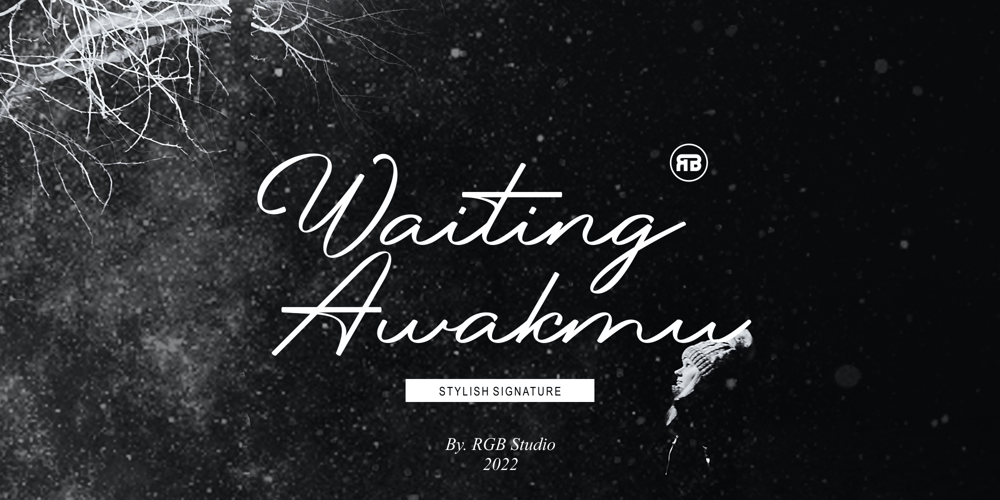
Waiting Awakmu Font Family was designed by MOH. MA’IN and published by RGB Studio. Waiting Awakmu contains 1 styles and family package options. Waiting Awakmu is a classy handwritten font, This is a truly versatile font combining sophisticated, casual and even fun sides depending on the style you use. Files Include : Basic Latin A-Z and a-z Numbers Symbols PUA Encode Multilanguage Support Thanks and have a wonderful day, If you have any questions, please get in touch with usDon’t forget to check out our other products.